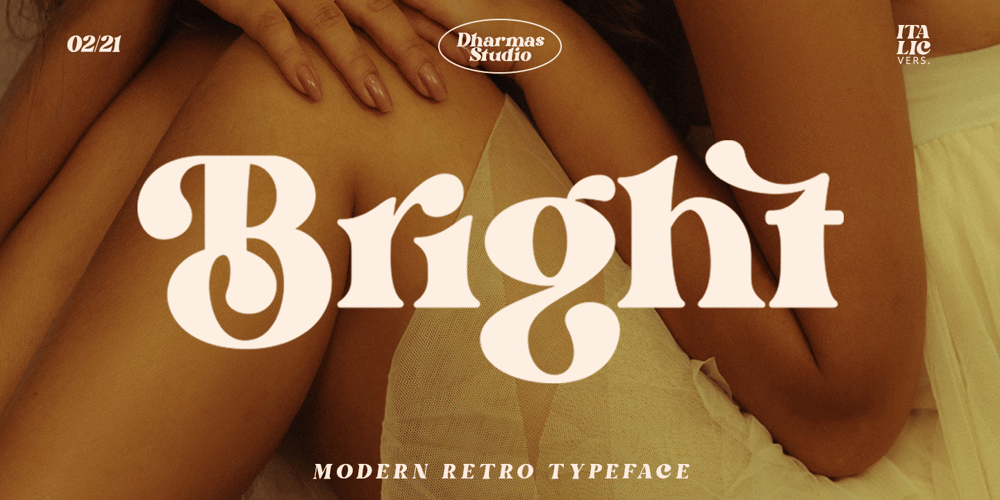
Bright Font Family was designed by Ahmad Jamaludin and published by Ahmad Jamaludin. Bright contains 2 styles and family package options. Start good day for new font! present to you, Bright!Bright is a stylish font It has both modern and retro look – clear, modern and fun. Helps to create layout design in 60s or 70s design projects.This font have more than 50 unique alternate and ligature that to give your logo,business card and another project to a unique vintage look. It has Italic version too so what a perfect vintage font!What’s you get? Unique letterforms Works on PC & Mac Simple Installations Accessible in the Adobe Illustrator, Adobe Photoshop, Microsoft Word even work on Canva! PUA Encoded Characters Fully accessible without additional design software. I really hope you’ll get pleasure using Bright font and it will be perfect addition to your font collection! If you have some questions, please write me a letter!Come and say hello over on Instagram! https://www.instagram.com/dharmas.studio/